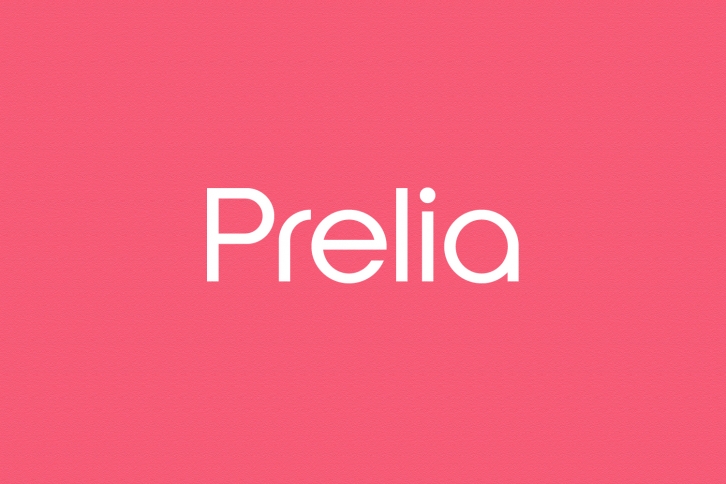
Prelia is a great font that was designed by Shina Design. Imagine the amount of combinations you can create using this font! The archive is 11.82 MB and it was released on October 4, 2019. Prelia looks beautiful on wedding invitations, greeting cards, logos, posters, labels, t-shirt designs, logos, business cards and is perfect for use in ink or watercolor works, fashion, magazines, packaging and food menus, children's books and more!